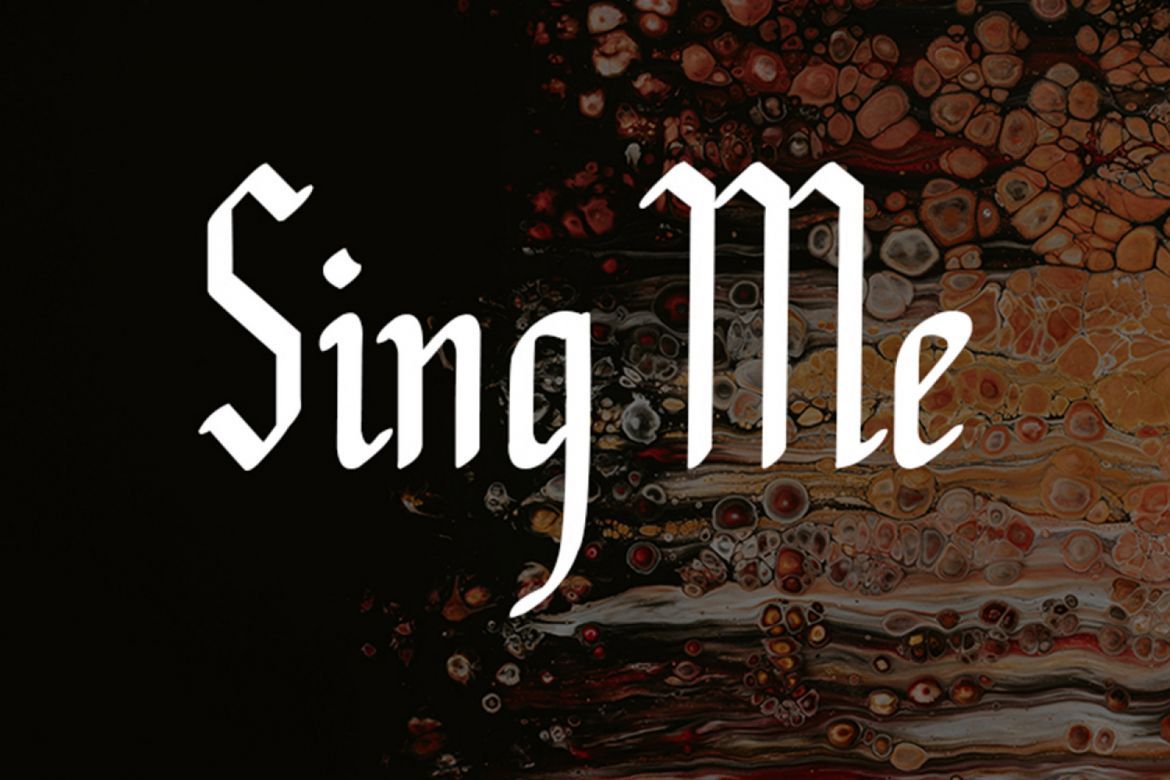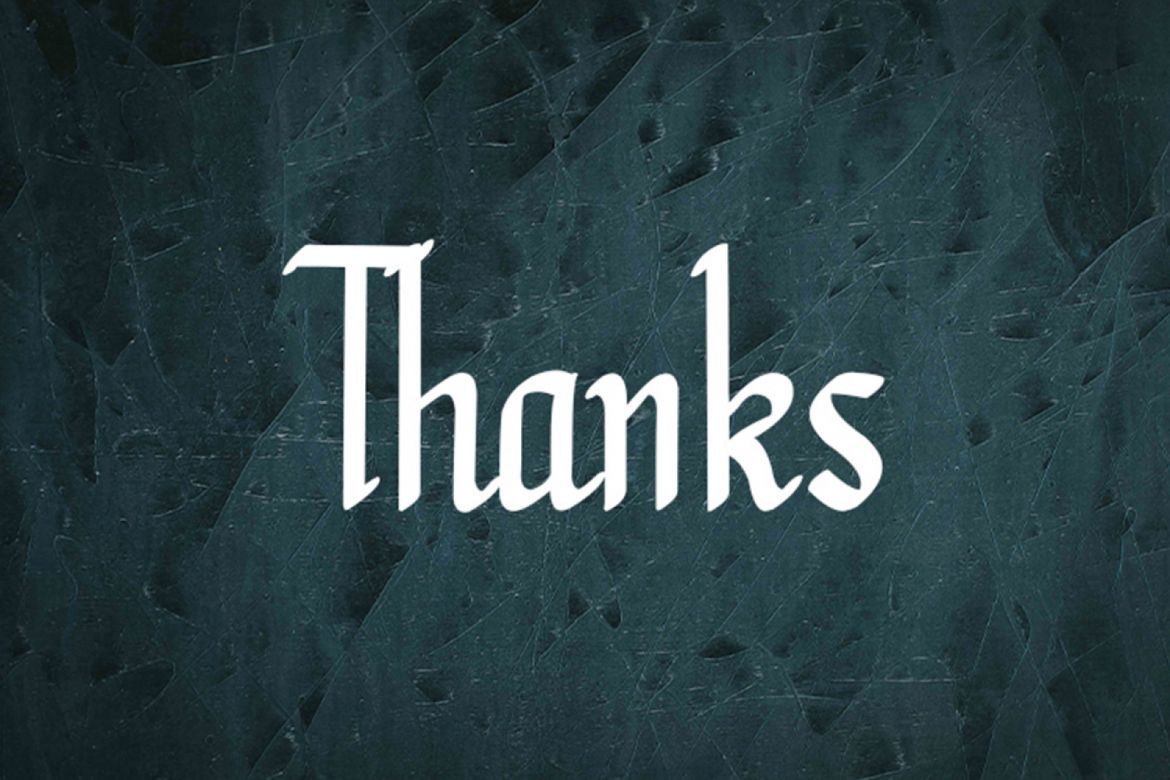
Sundisk - Calligraphy Handwritten Font
Sundisk is calligraphy handwritten font. We creat it with very carefuly. Sundisk is perfect for your all project such as wedding design, lettering, tatto design, poster, flyer design, gravity, etc. Here is the link to purchase full version and commercial license: https://justlettstudio.com/